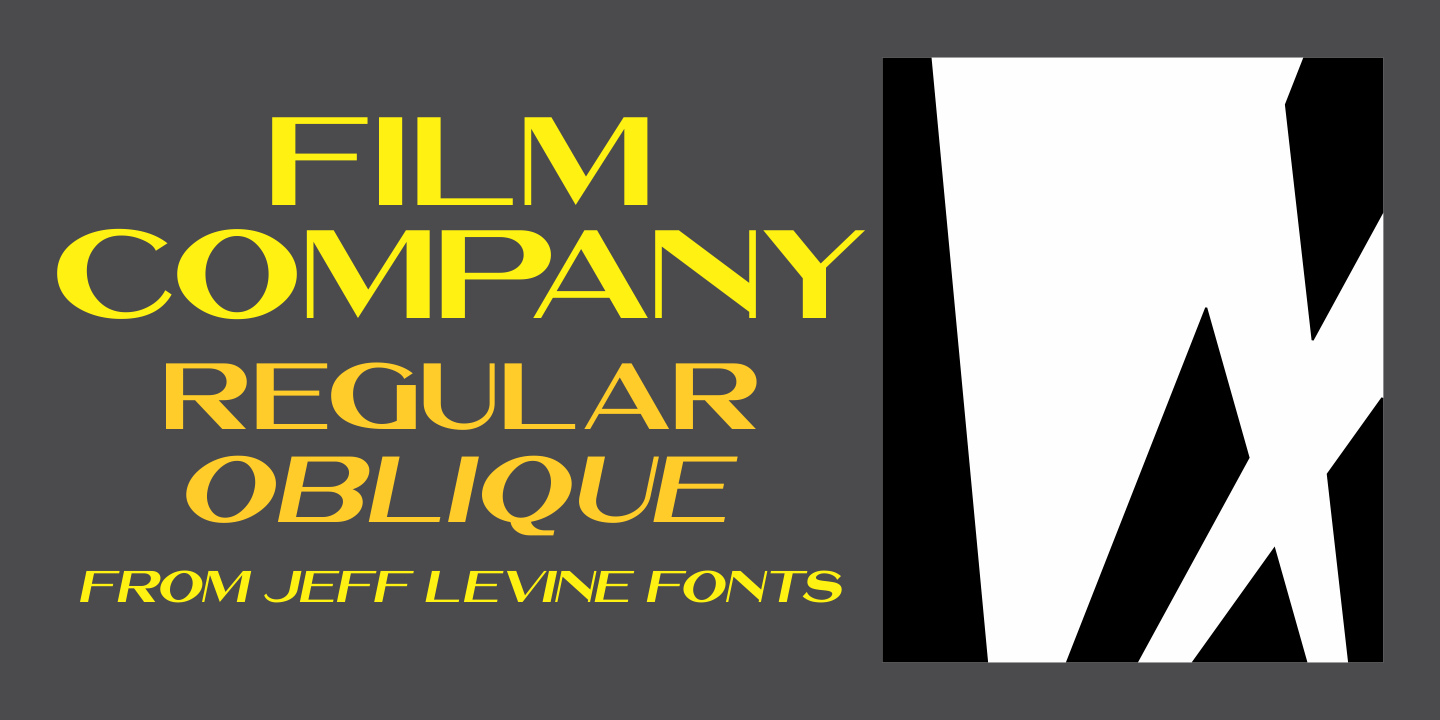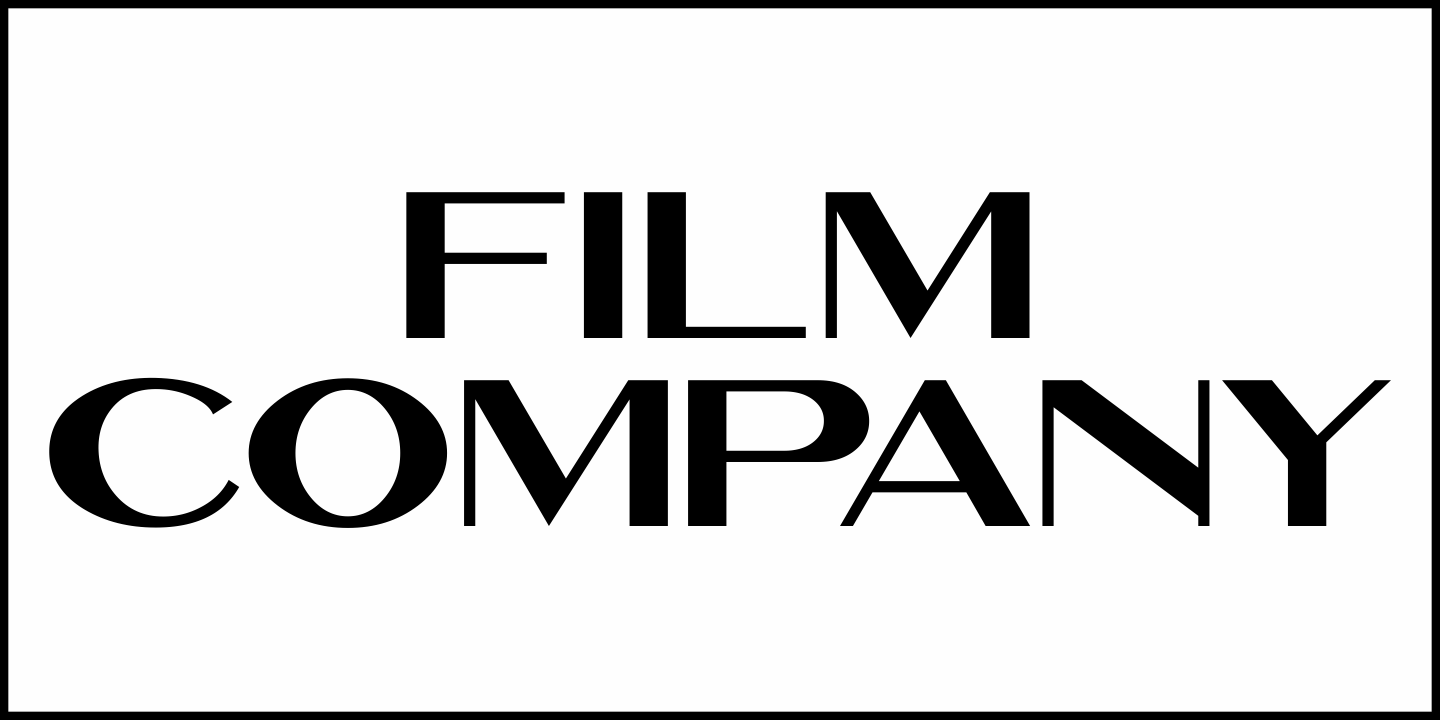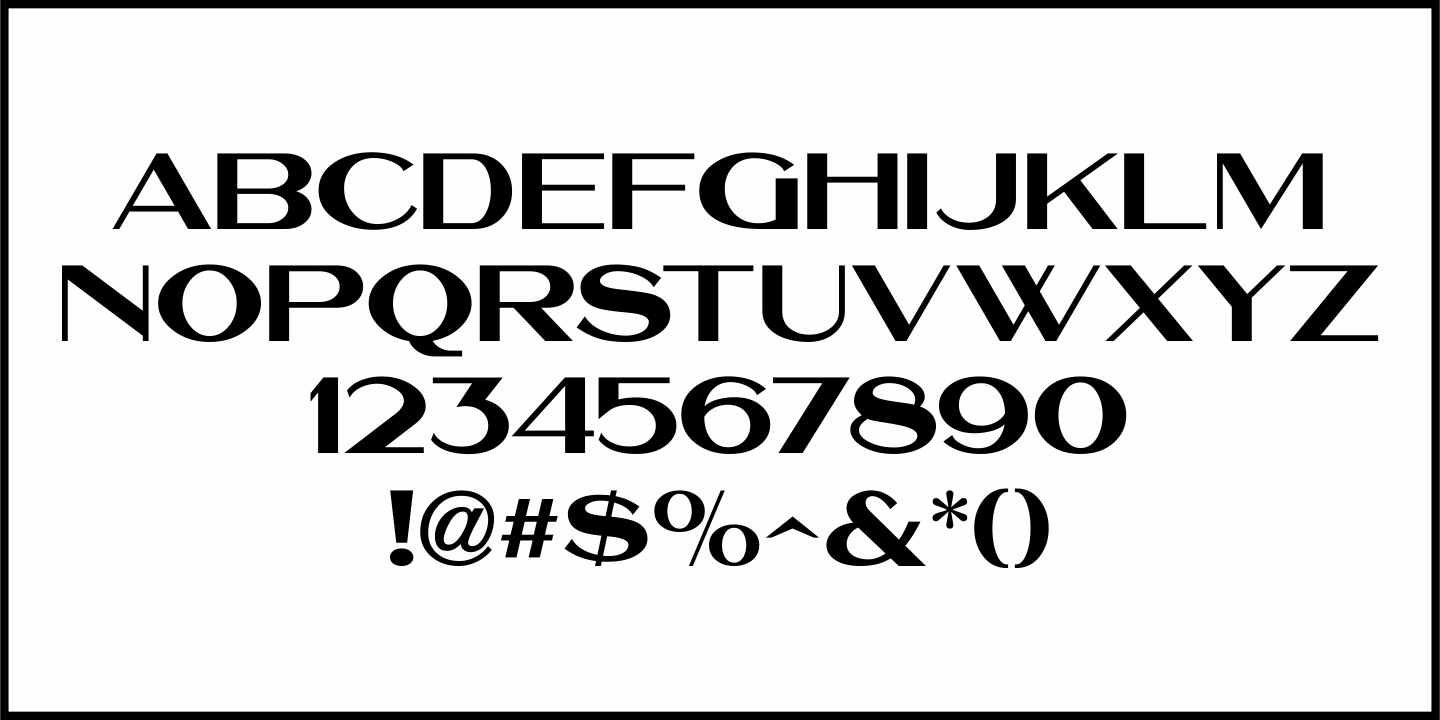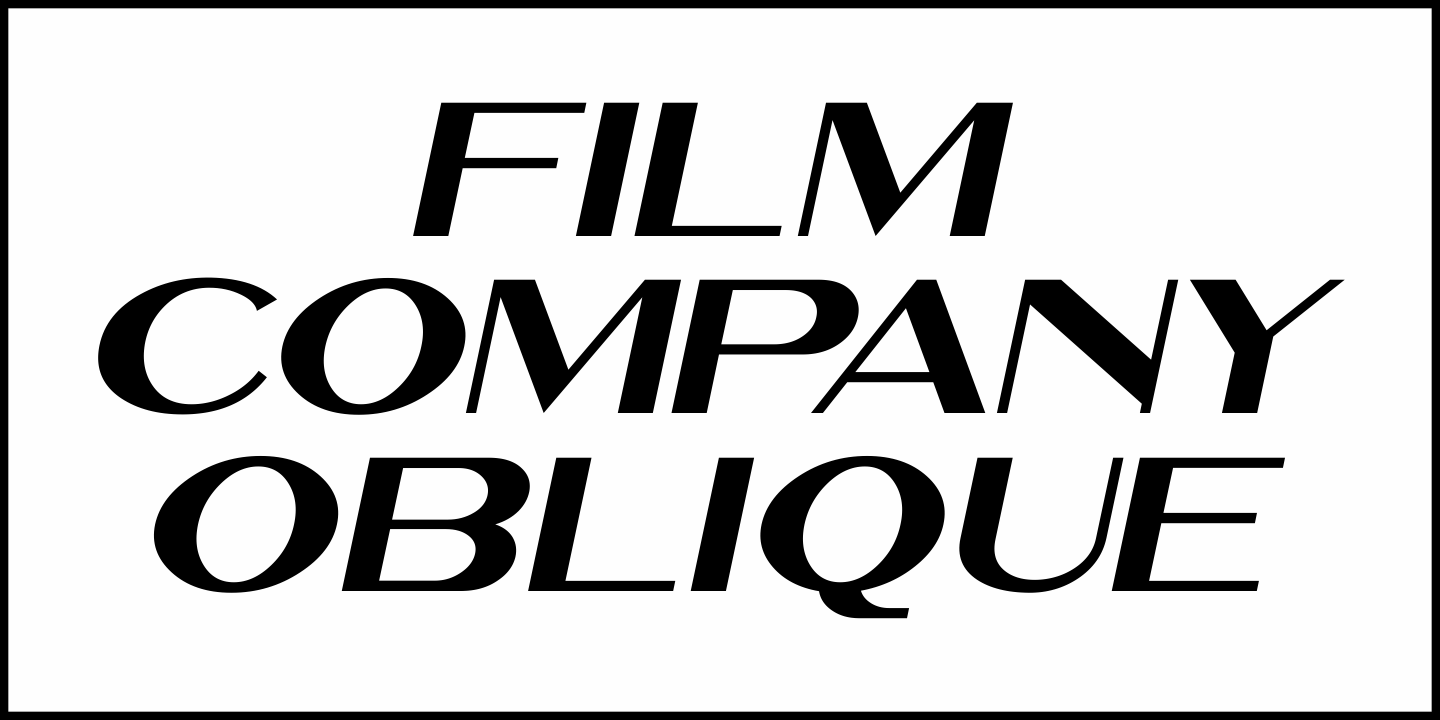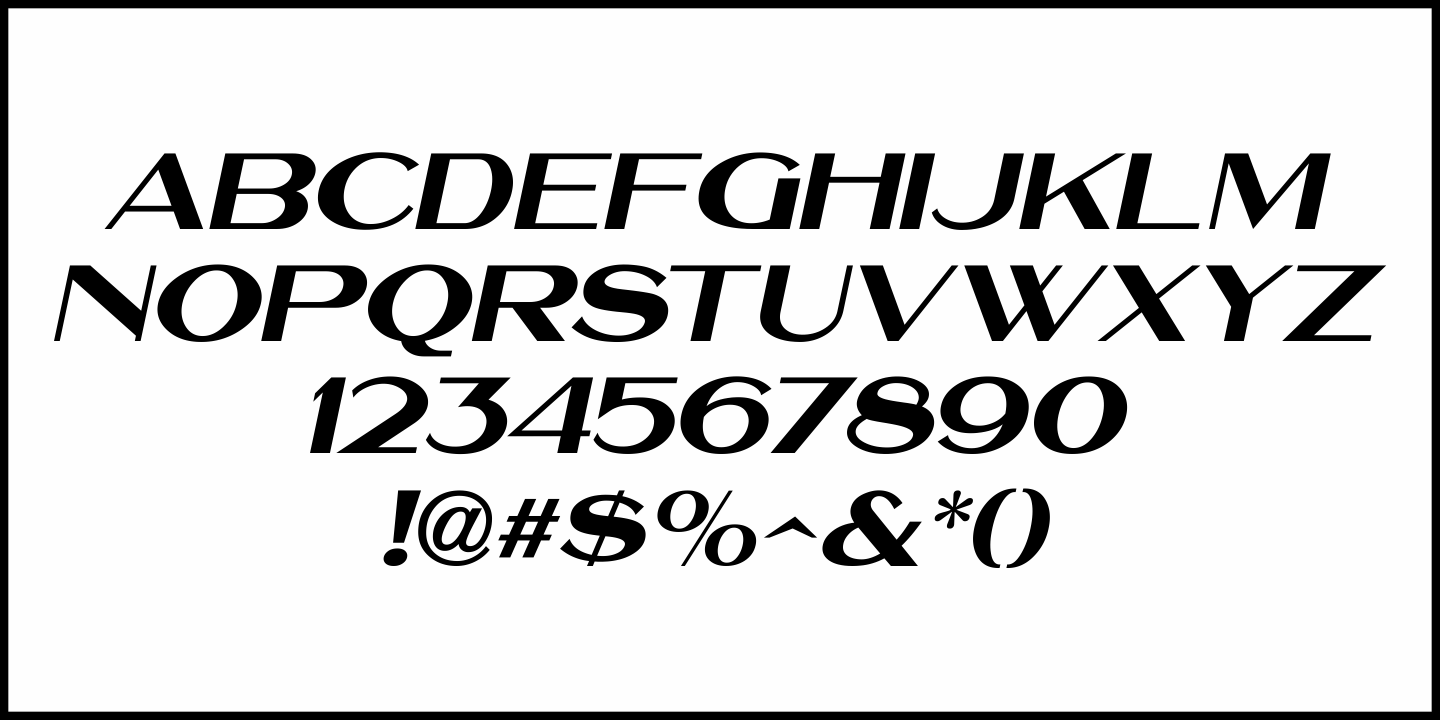
Film Company
A Film Agency ad in the December 27, 1919 issue of the French film trade publication "Le Courrier Cinématographique" had word copy hand lettered in a wide thick-and-thin sans serif showing early Art Deco influences.
This is now available as Film Company JNL in both regular and oblique versions.
Film Company JNL Regular by Jeff Levine Fonts